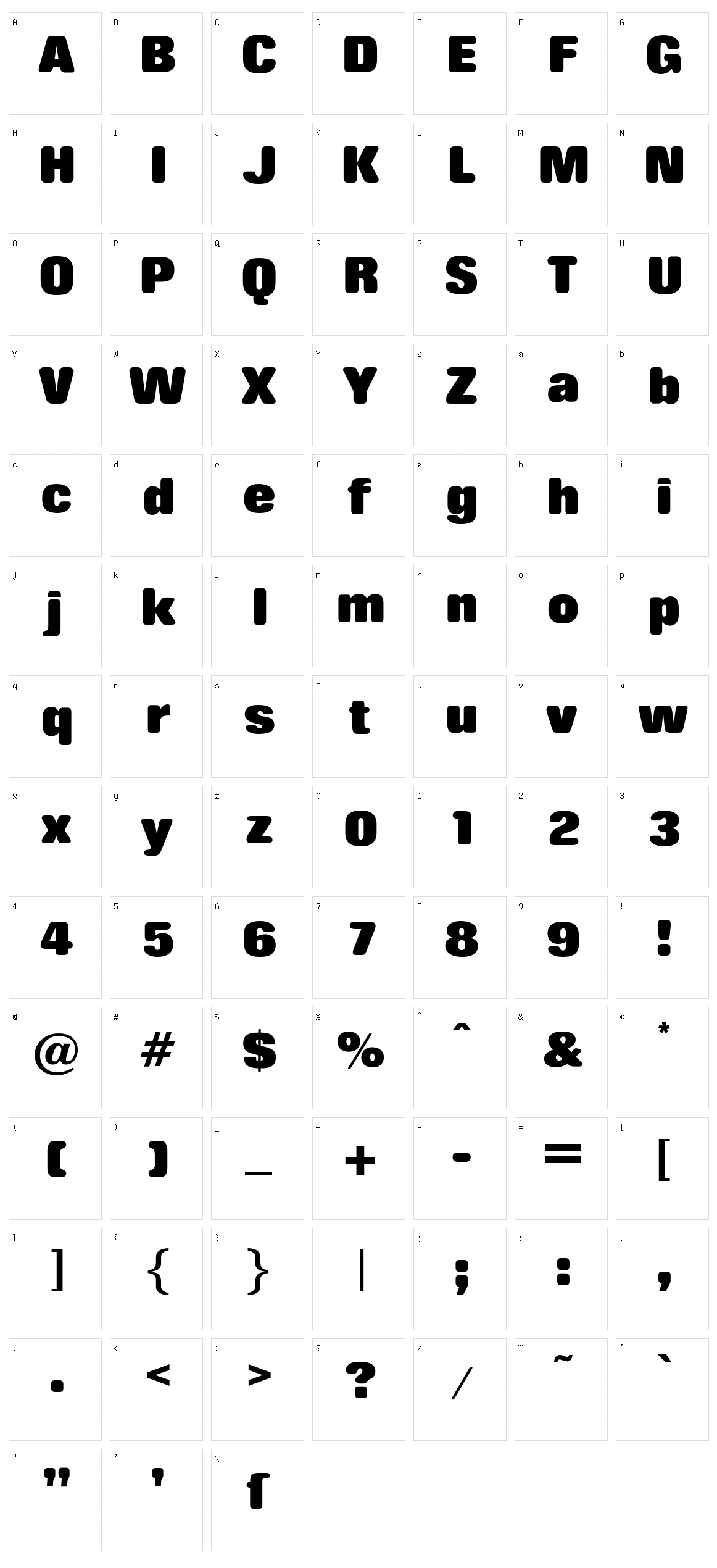
The free font Rolling No One is carefully designed by Dieter Steffmann, showcasing a thoughtful balance of creativity and usability and falls under the Sans serif font style. When you download the ZIP file, it contains only 18.65 KB of font files, making it lightweight and quick to download. Please review the license details below to understand permitted usage and distribution rights. If license information is not available, we recommend using this font for personal projects only or contacting the author directly for commercial usage permissions.